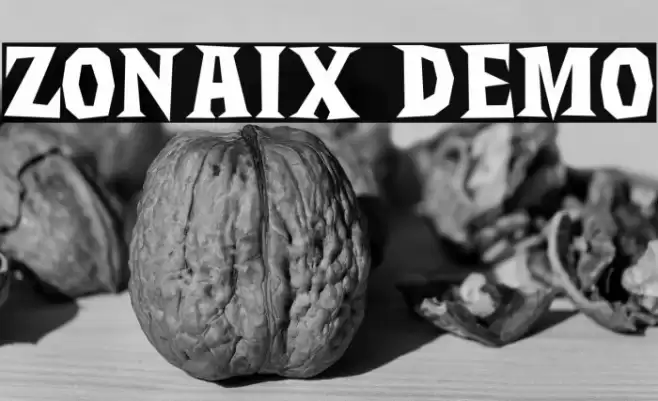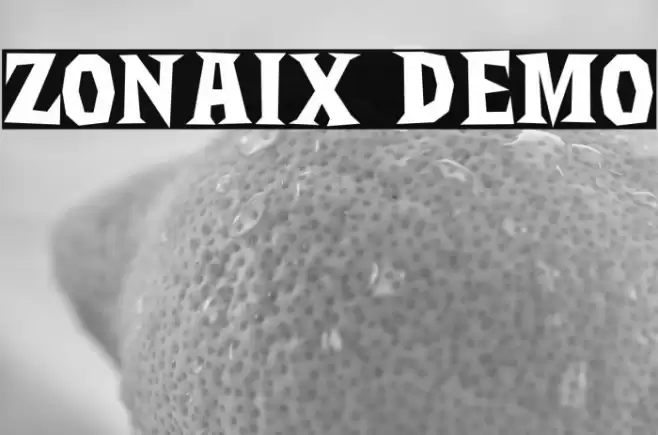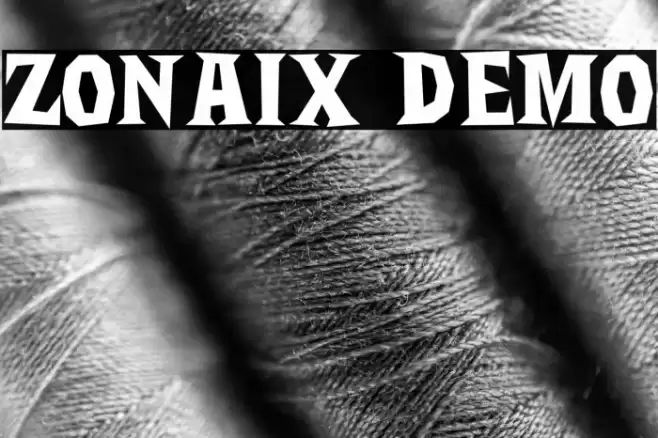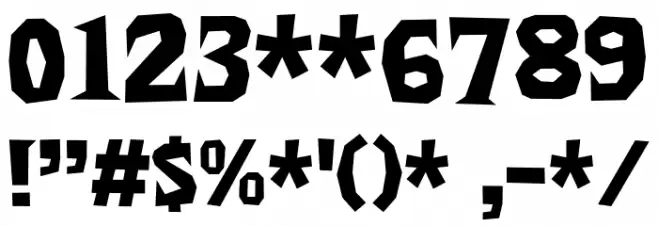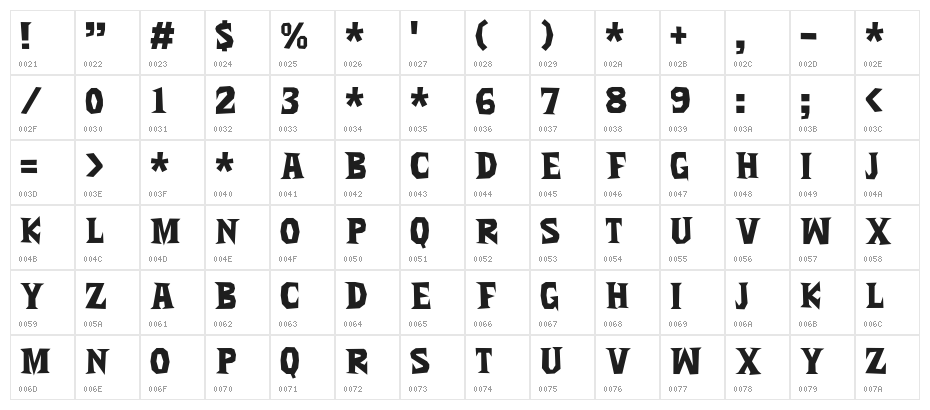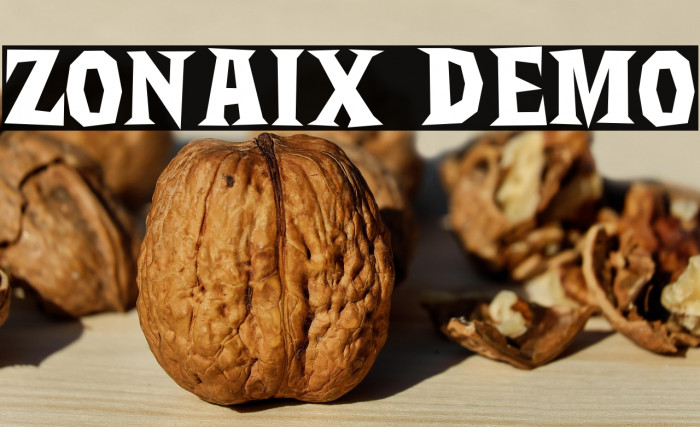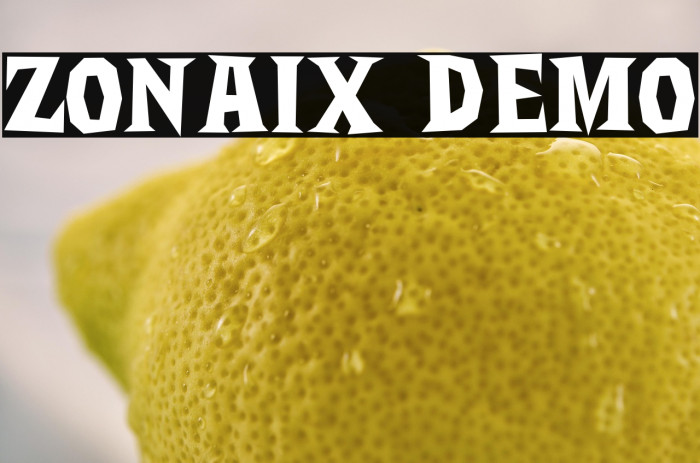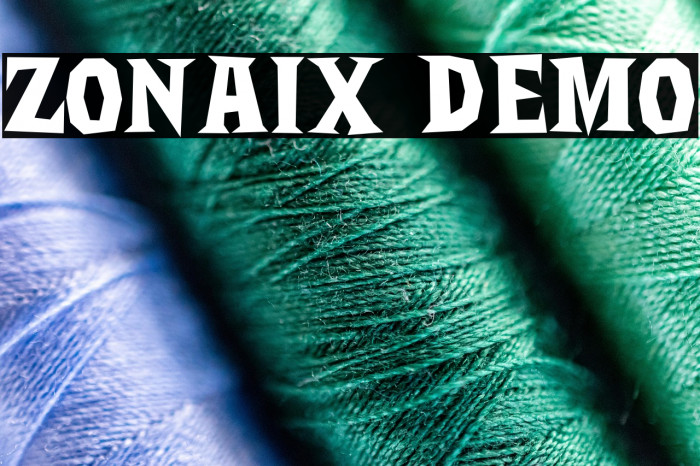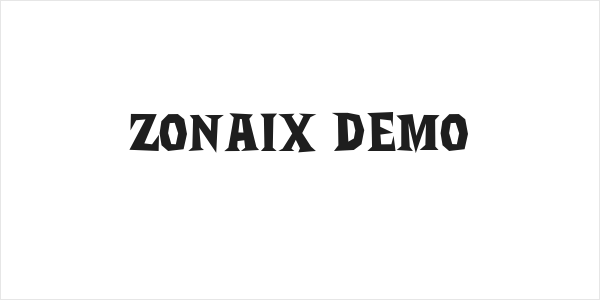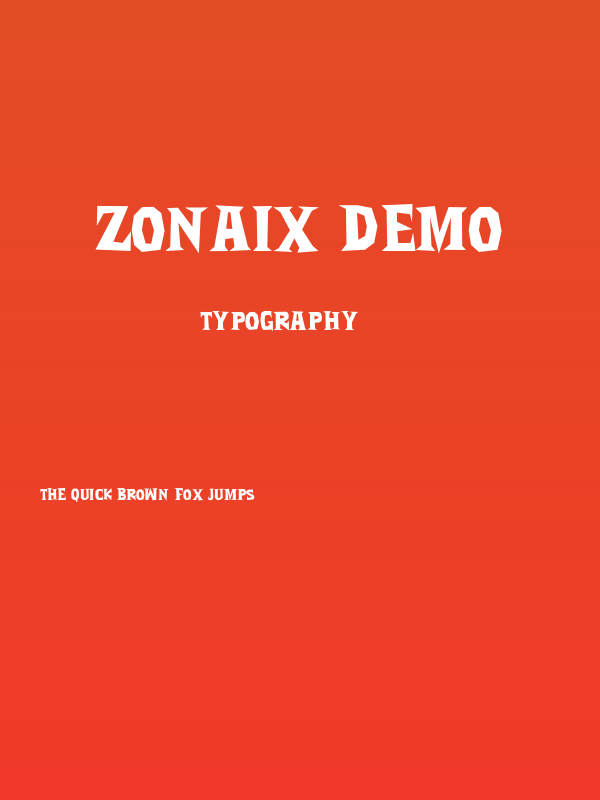
Zonaix DEMO Font
Zonaix DEMO Description
This font features a bold and dynamic style with sharp, angular edges and a distinct geometric structure. The characters are heavily stylized, giving them a unique and edgy appearance. The uppercase and lowercase letters maintain a consistent design, with exaggerated serifs and a slightly condensed form. The numbers and special characters follow the same aesthetic, ensuring a cohesive look across all elements. The font's boldness and distinctive shapes make it stand out, ideal for projects that require a strong visual impact.
A bold, angular font with sharp edges and a geometric style from Uncategorized fonts.
- Proposed Projects: Perfect for posters, album covers, video game titles, and branding that requires a bold statement.
- Width: Condensed
- Contrast: High